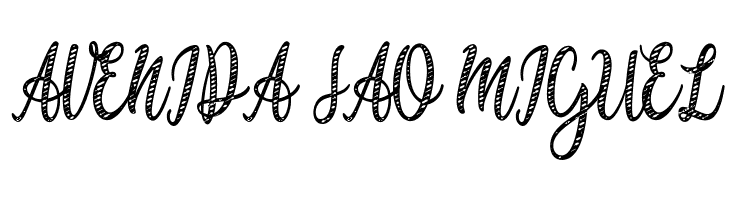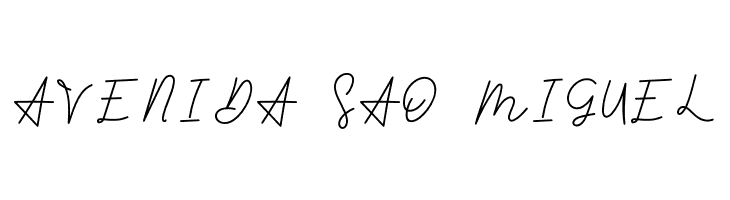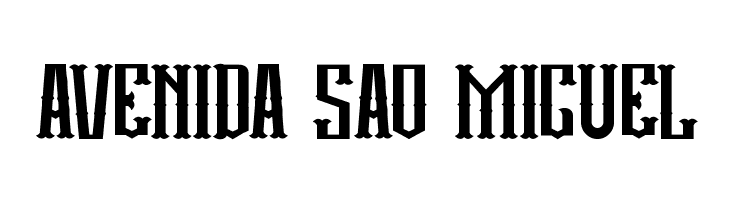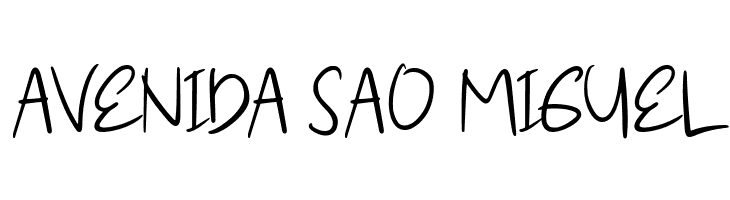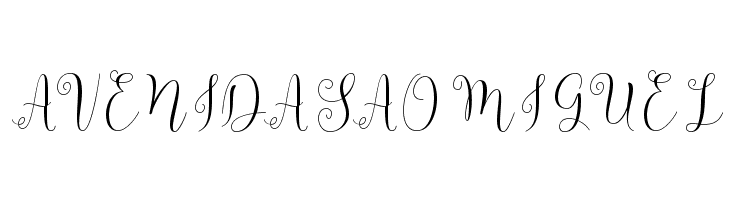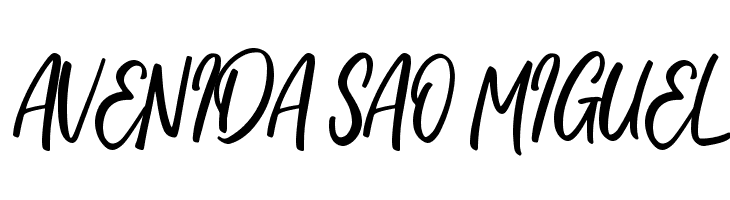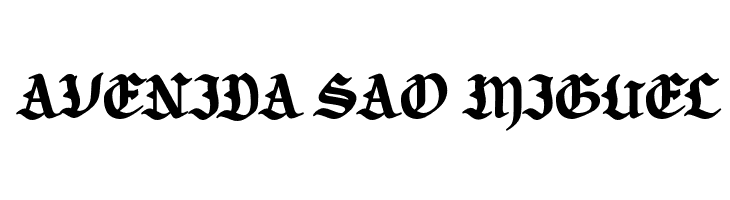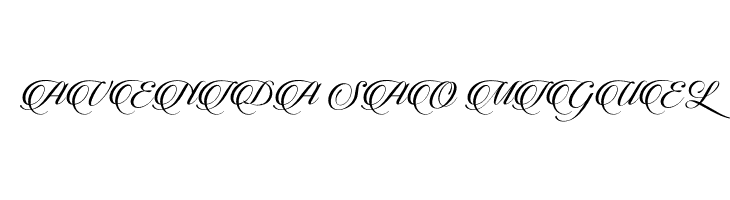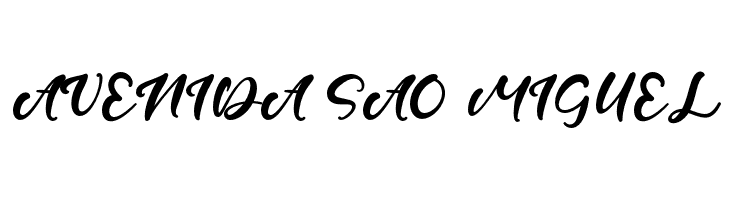
• Candelia Regular
A flowing, cursive script font with elegant, interconnected characters.
• Candelita
A bold, playful font with rounded, bubbly characters ideal for fun and whimsical designs.
• Candenvilla_Demo
An elegant script font with flowing, cursive characters and decorative swashes.
• Candera-Bold
A playful, bold, and rounded font with smooth curves and a whimsical touch.
• Candia Script Font
A fluid and elegant script font with a calligraphic style.
• Candice Slanted
A slanted, cursive font with medium contrast and elegant, flowing strokes.
• Candid Style
A cursive, handwritten font with a casual and flowing style.
• Candidasa Regular
A playful and casual handwritten font with smooth curves and bold strokes.
• Candle Fest
A flowing, cursive font with a modern yet classic handwritten style.
• Candle Light
A decorative, gothic-inspired font with sharp, jagged edges and pointed serifs.
• Candle Quotes
A playful, bold font with rounded, thick strokes and a friendly appearance.
• Candlebright
A bold, blackletter font with high contrast and medieval styling.
• CandleFest
A lively and elegant script font with fluid, connected letterforms.
• candlelight
A bold, dripping font with a spooky, wax-like appearance.
• Candlelight Dinner-personal use
An elegant script font with intricate swirls and flowing design.
• Candles Christmas
Playful, bold, hand-drawn display font with rounded, irregular forms.
• CandlescriptDemoVersion
An elegant and sophisticated cursive font with ornate flourishes.
• Candlestick Regular
A bold, geometric font with a double-line outline, perfect for striking headlines.
• Candleton DEMO
A modern, elegant font with tall, narrow letterforms and smooth curves.
• Candreva
A playful, handwritten-style font with a casual and informal appearance.
• Candrika